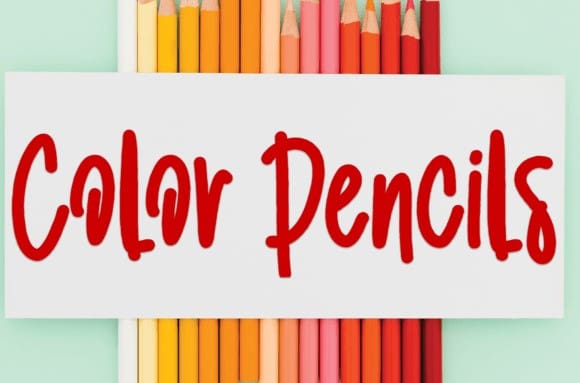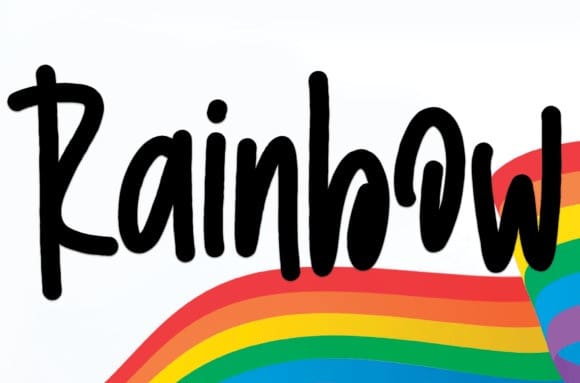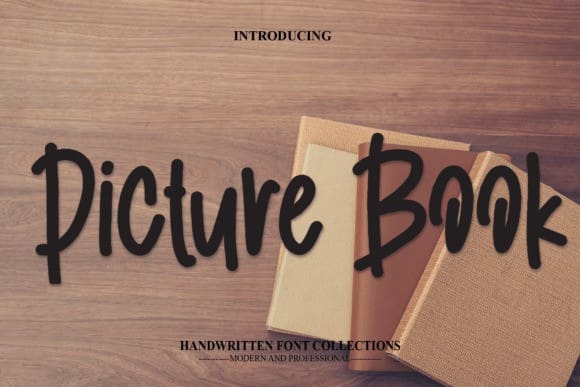
Picture Book Font
Picture Book Font is a sweet and friendly handwritten font. Cute and fun, this font is ideal for writing wedding invitations, cards, or any other design that might need a fun touch!